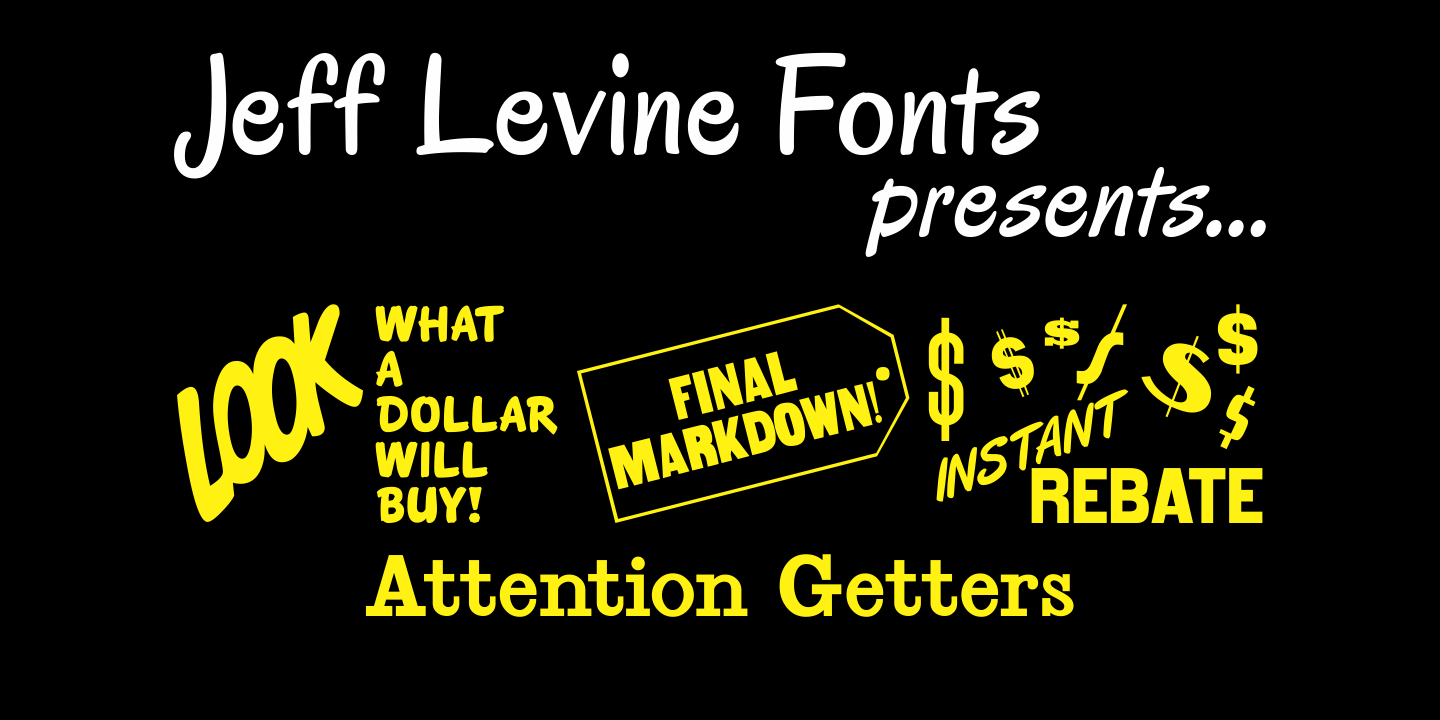
Attention Getters
In the days of metal type or paper clip art, spot illustrations with stock phrases were used to embellish ads and fliers in order to grab the attention of potential customers. The convenience of digital type puts art like this at a designer's fingertips. Attention Getters JNL contains fifty-two such ad phrases, certain to add a nostalgic, yet functional appeal to your printed or online piece.